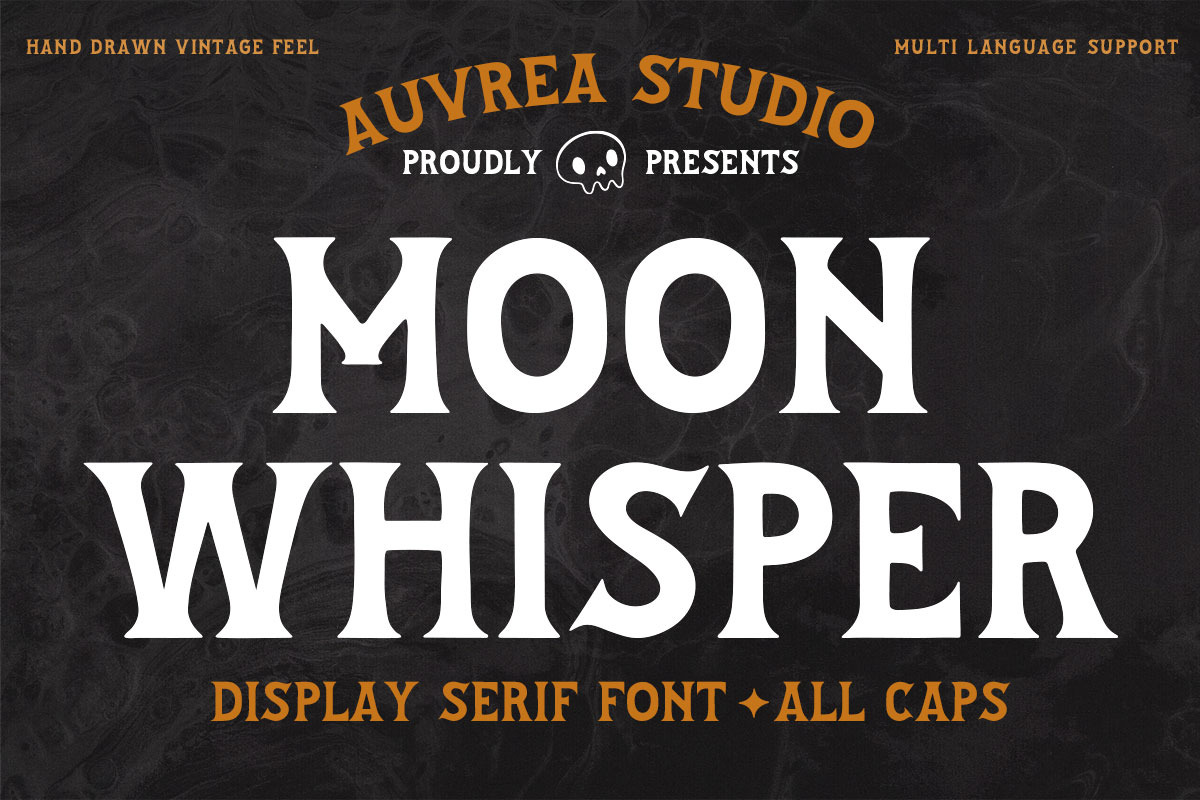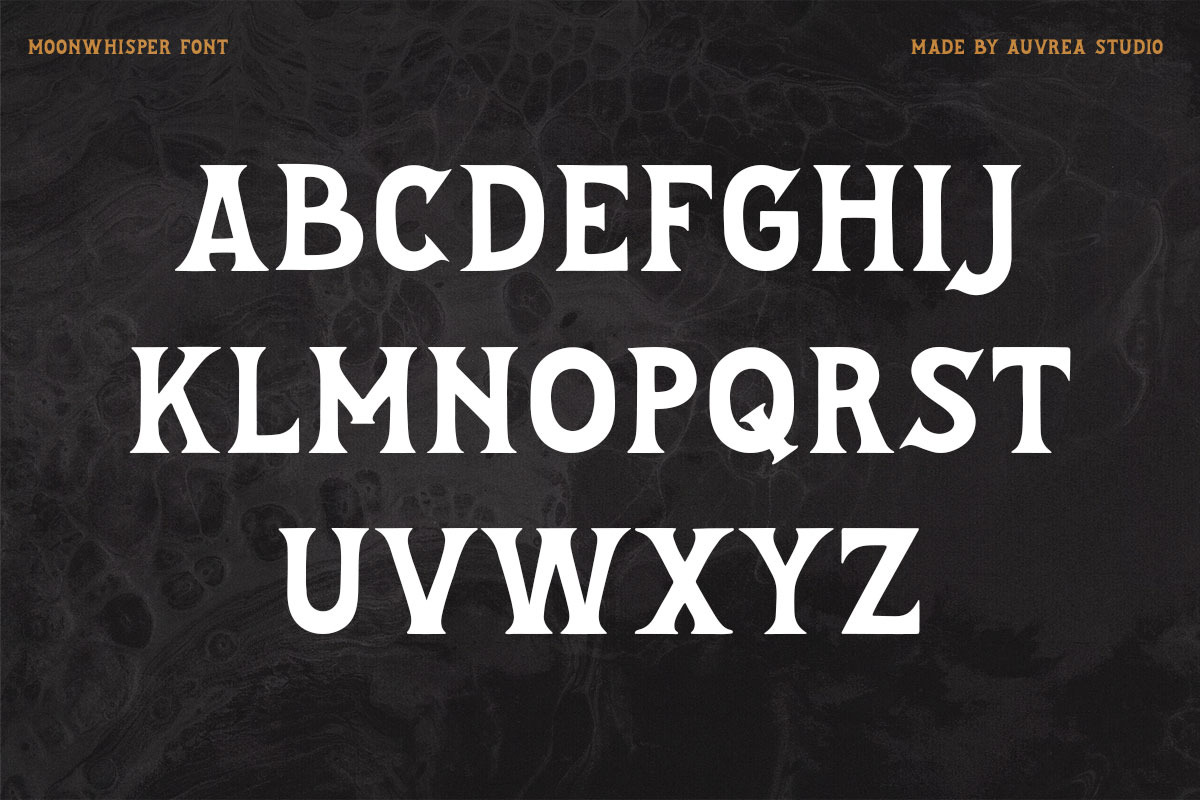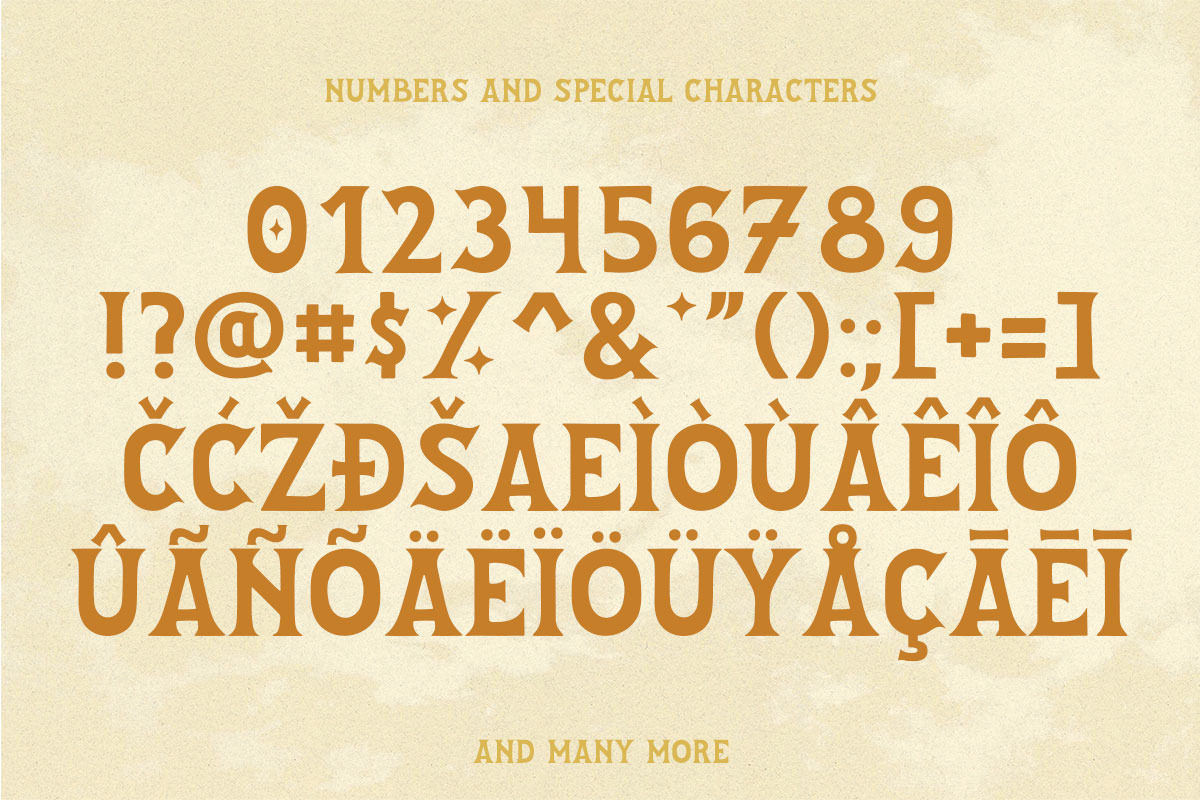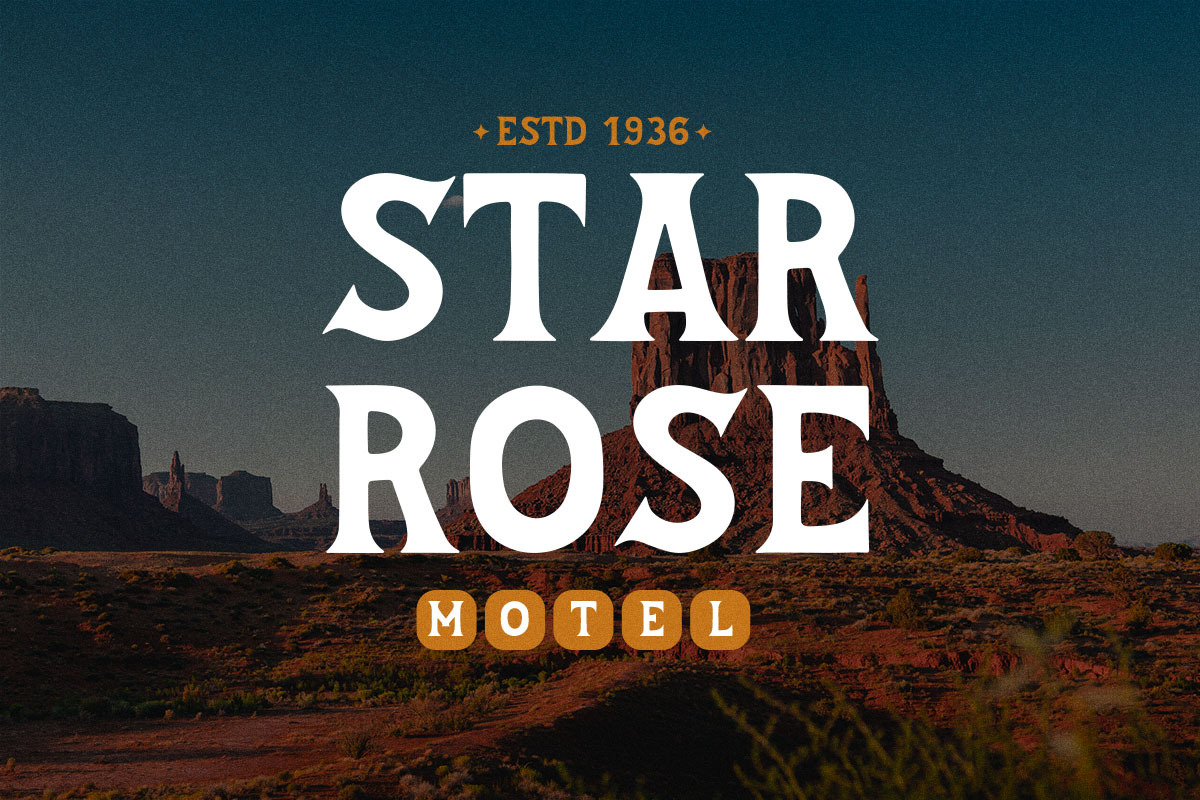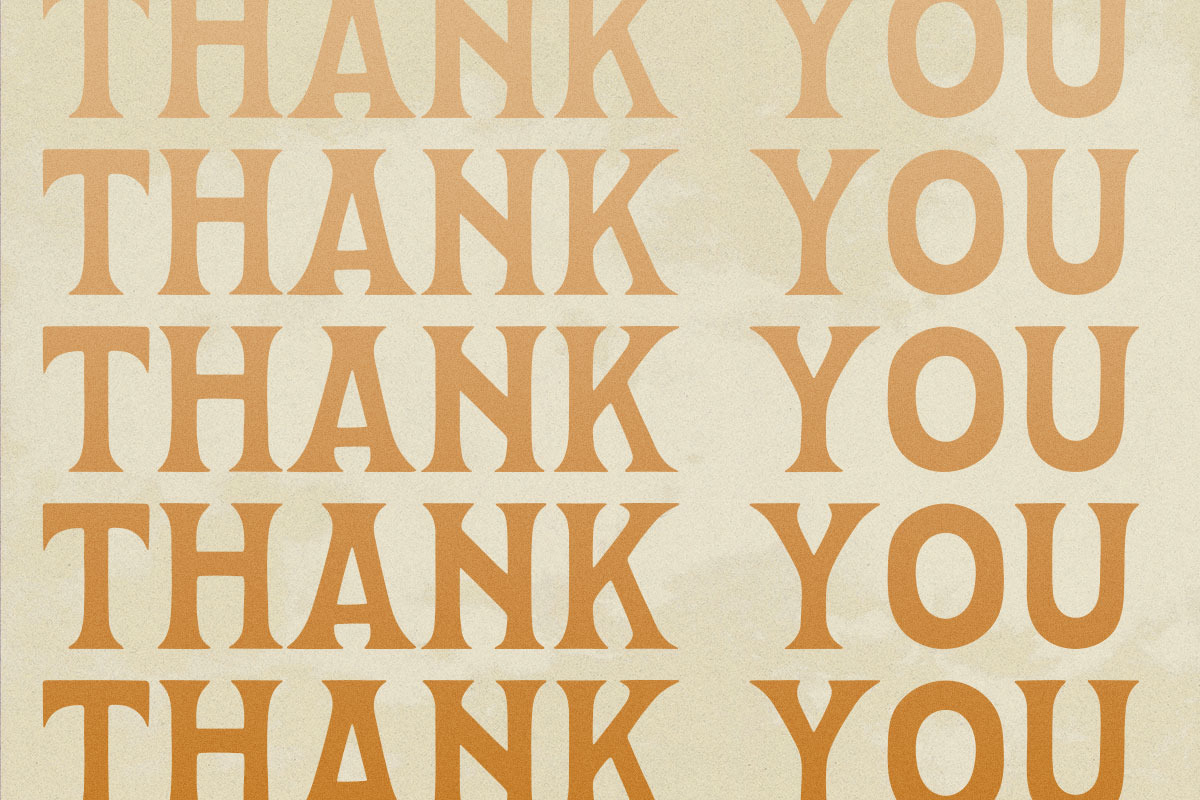
Moonwhisper DISPLAY font
Moonwhisper DISPLAY font is a vintage-inspired serif font drawn by hand.
With retro and hand-drawn features it is perfect for your next project.